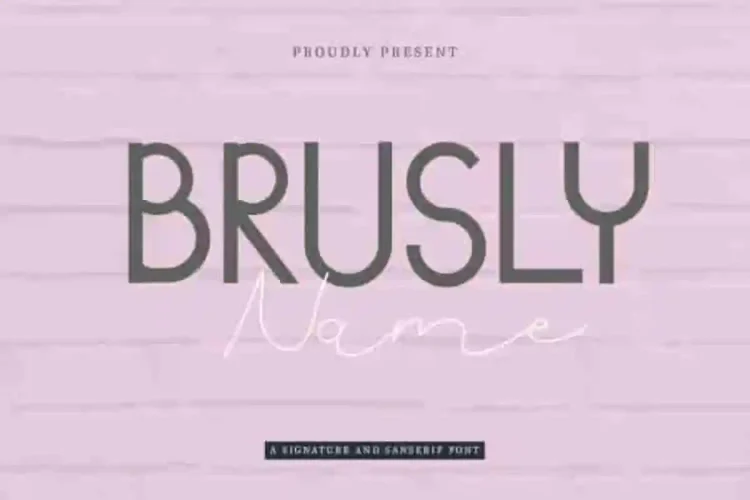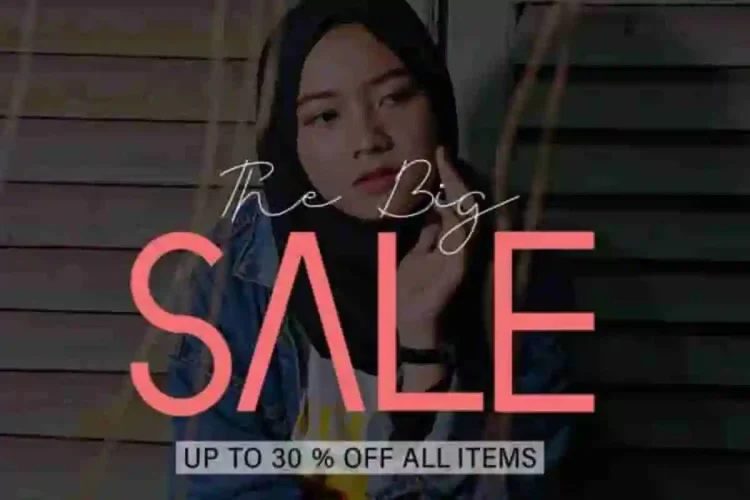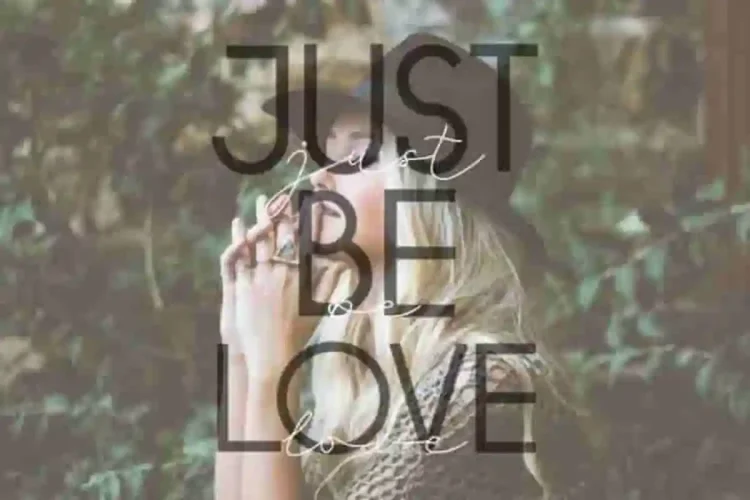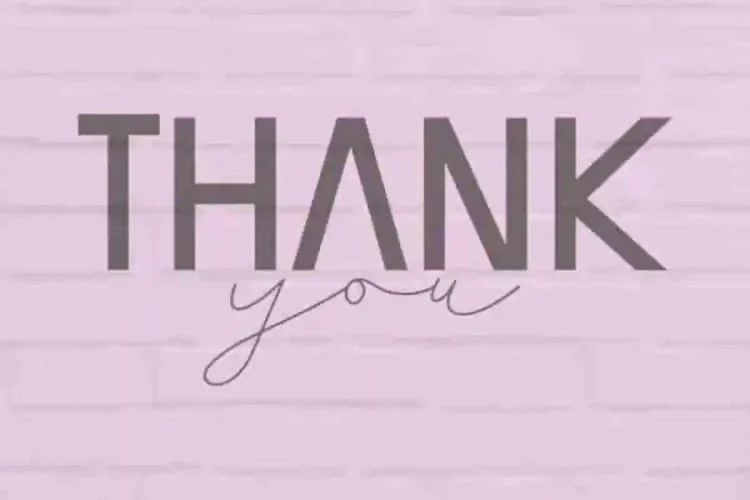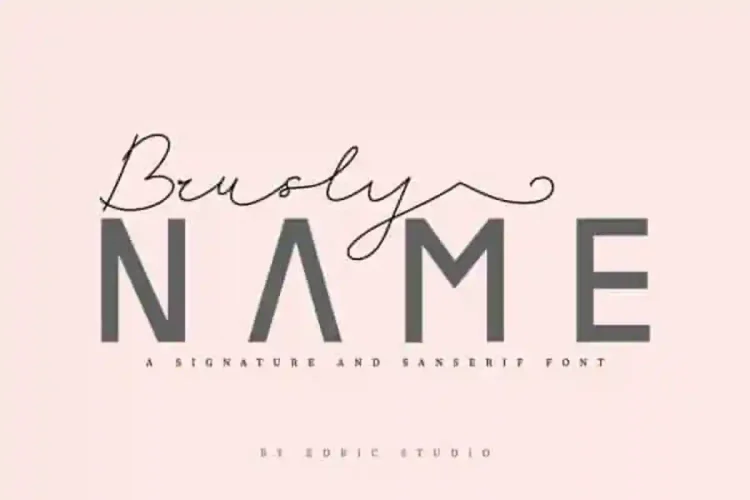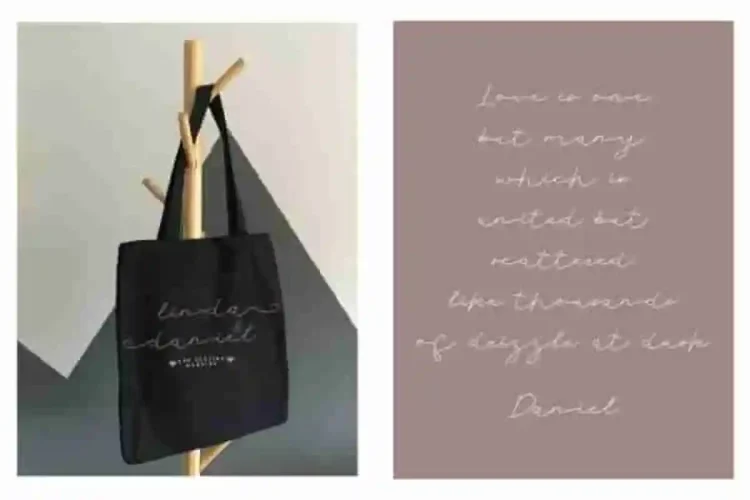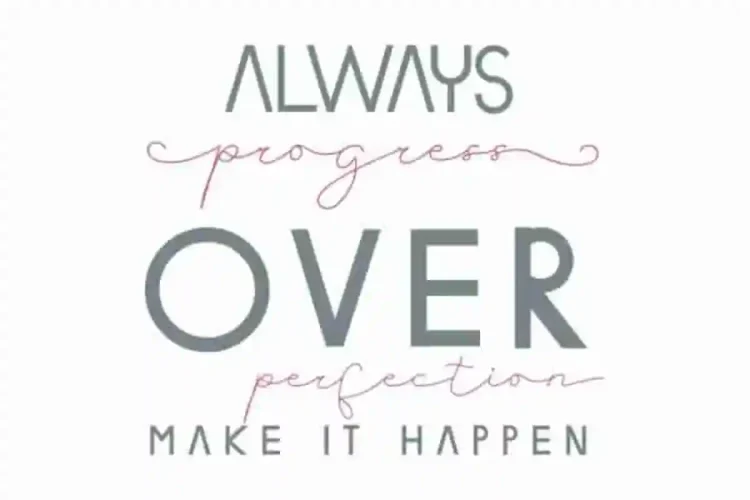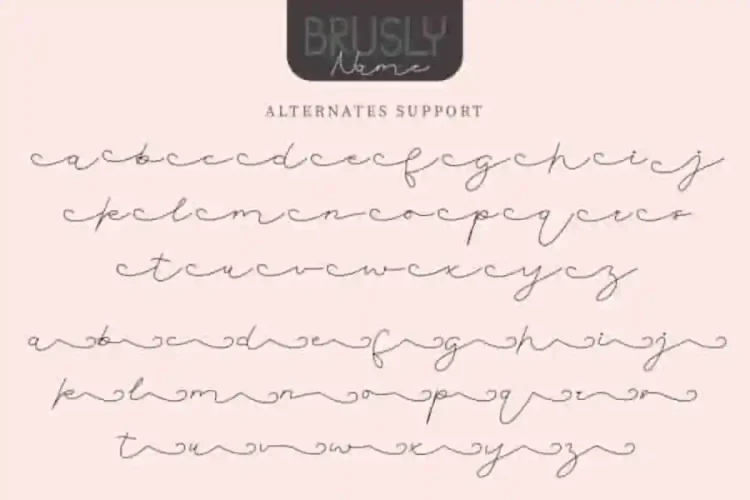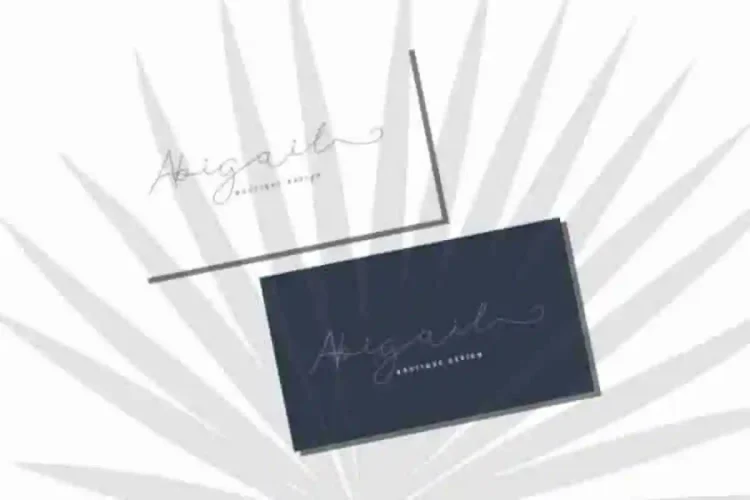
Brusly Name Calligraphy Font Duo
Please welcome Our newest handcrafted font duo : Brusly Name
This is a Font Duo Family, handmade  here in Indonesia: Bandung-Garut. The artists/designers of this beautiful typeface are Deyan, Yasri and Suci.
Brusly Name Calligraphy Font Duo is an exclusive font family with two different styles :  Sans Serif and Calligraphy script. This font has a stunning characters set, perfectly managed with well spaced and kerning.
Brusly Name Calligraphy Font Duo will be great for any projects including : branding, logo, stationery, business card, signage, flyer, brochure etc. Almost all industries will be match for this typeface: wedding, events, real estate, architect, law firm, florist, gardening, makeup artist, travel, hotel, musician etc.